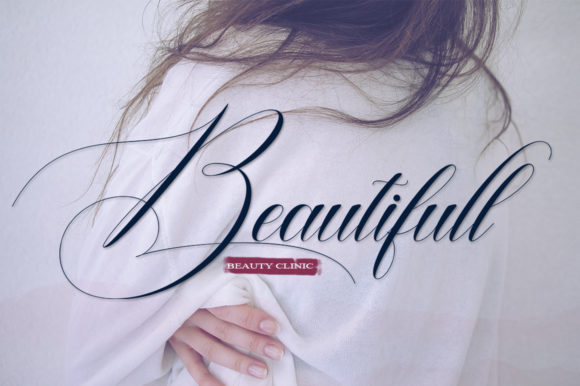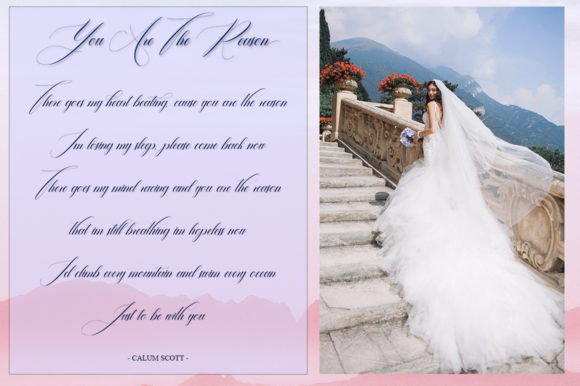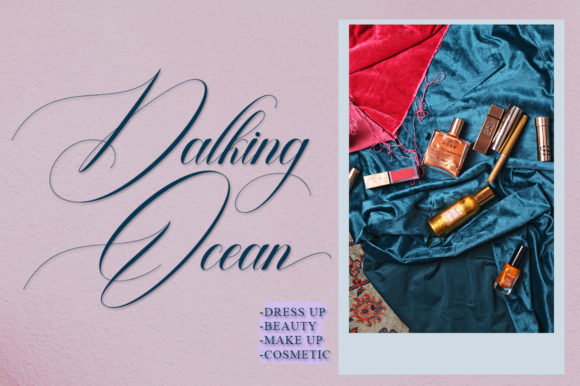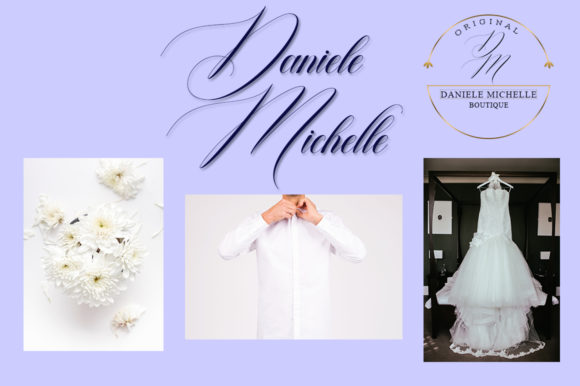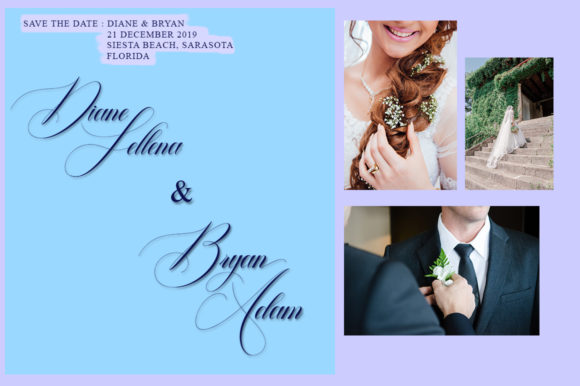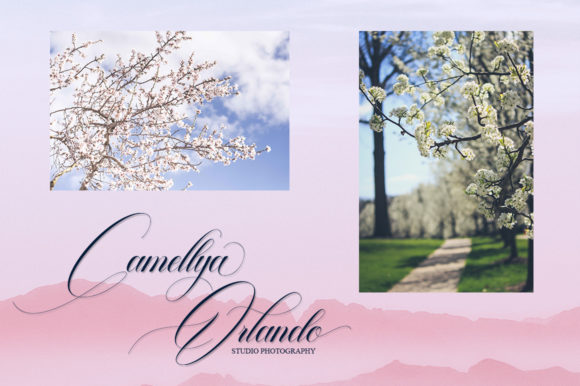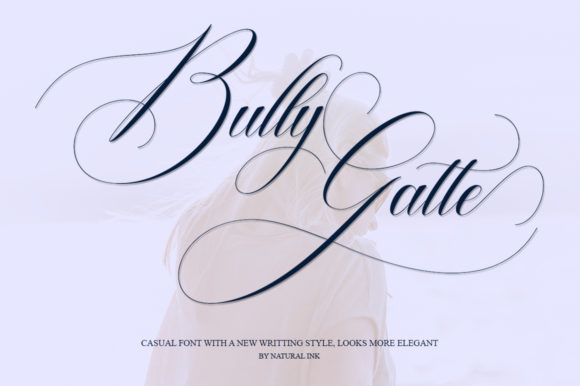
Bully Gatte Font
About Bully Gatte Font
Bully Gatte is a stunning script font with a sophisticated feel. It combines bold swashes and organic ligatures into a beautiful handwritten font.